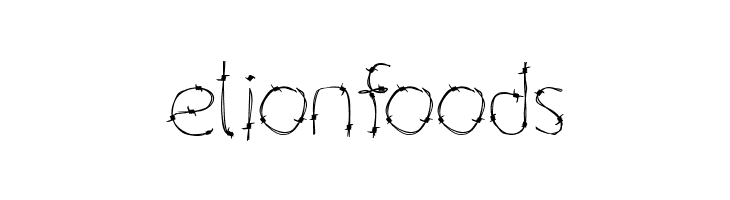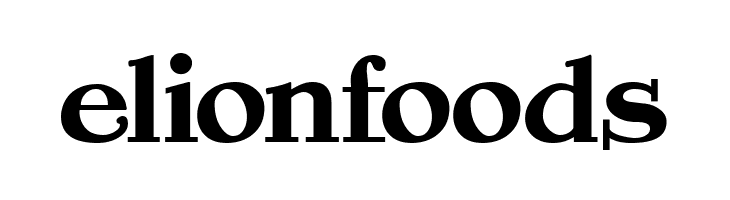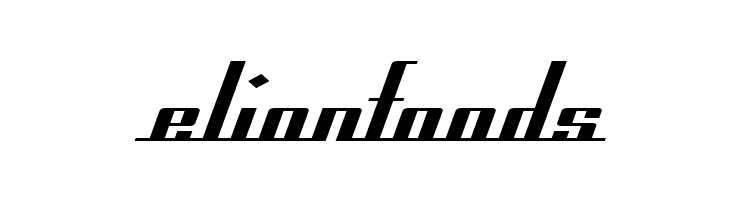
A decorative font styled like barbed wire, offering a rugged and edgy appearance.
A bold, decorative serif font with dramatic curves and intricate details.
A bold, angular font with a dynamic slant and retro-futuristic style.
A bold, angular font with a modern, dynamic style.
A classic serif font with elegant, sharp serifs and a timeless style.
A modern, geometric font with clean lines and a slightly condensed style.